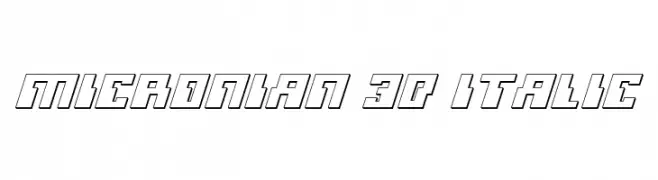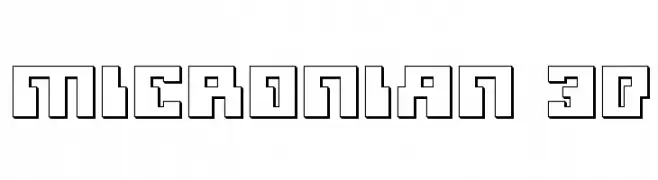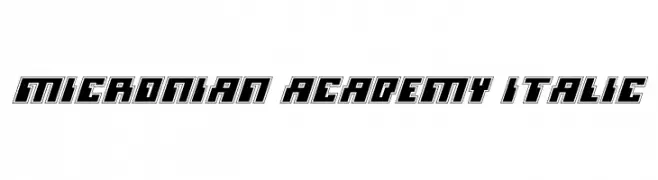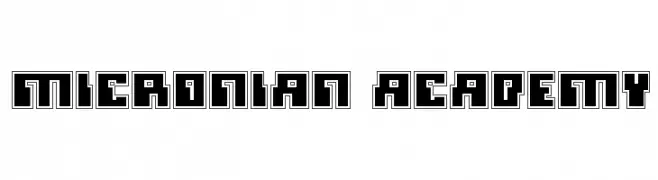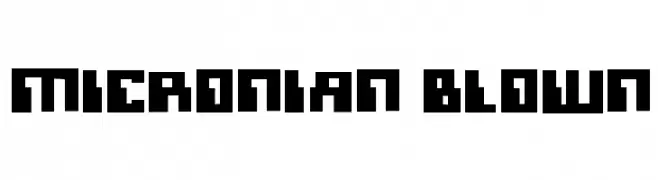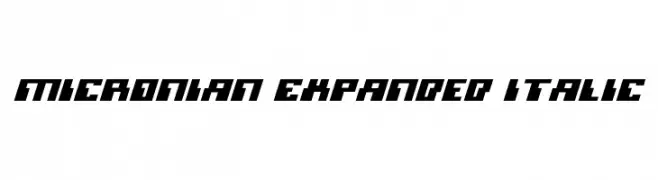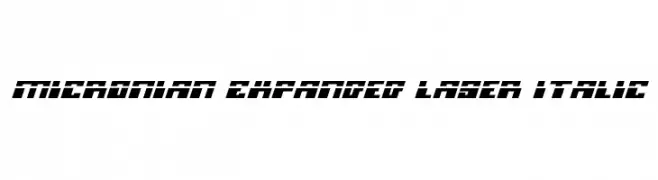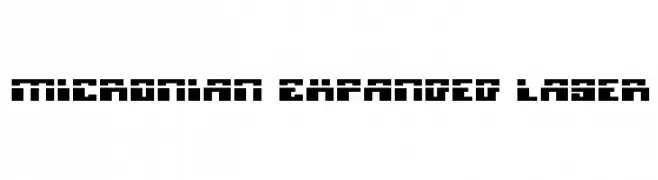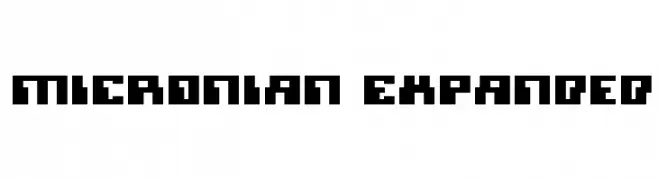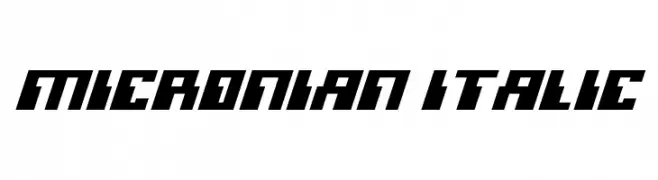
A bold, 3D geometric font with a futuristic and structured appearance.
A bold, 3D italic font with a geometric and futuristic style.
A bold, geometric font with a futuristic, digital aesthetic.
A bold, geometric italic font with a futuristic and dynamic style.
A bold, geometric font with a futuristic, industrial style.
A bold, geometric font with a futuristic, digital style and expanded width.
A bold, expanded, and italicized font with a futuristic and angular design.
A bold, geometric font with a futuristic and digital aesthetic.
A futuristic, bold, and expanded italic font with sharp geometric angles.
A bold, angular, and italicized font with a futuristic design.